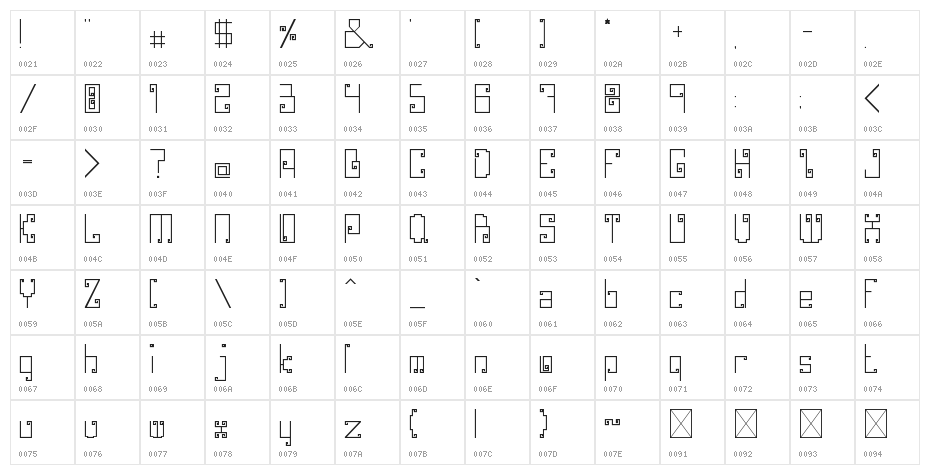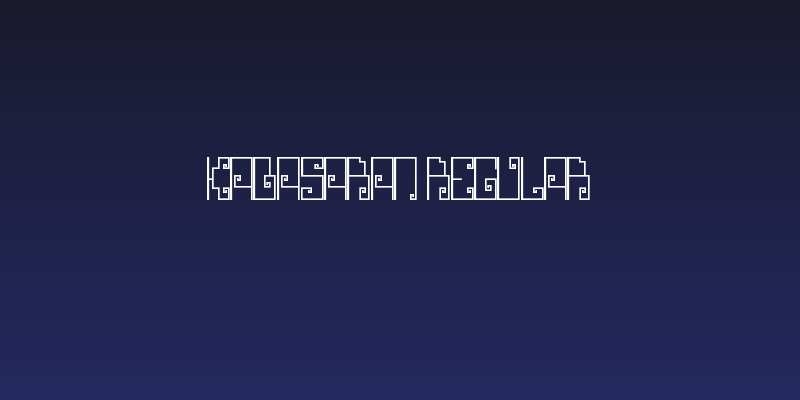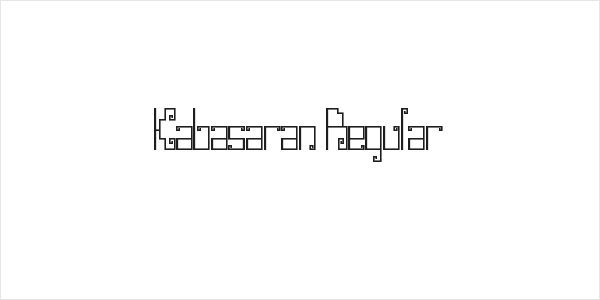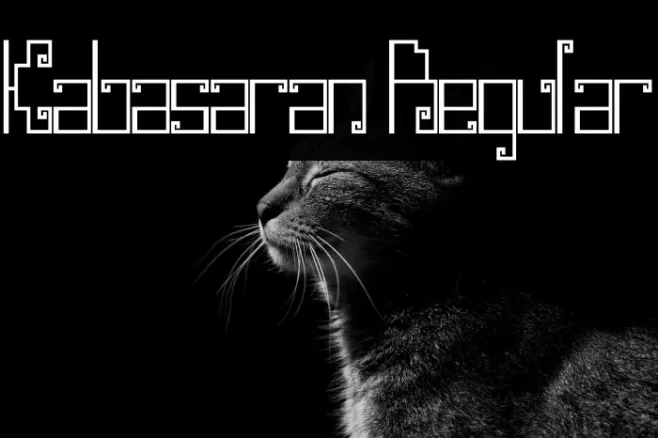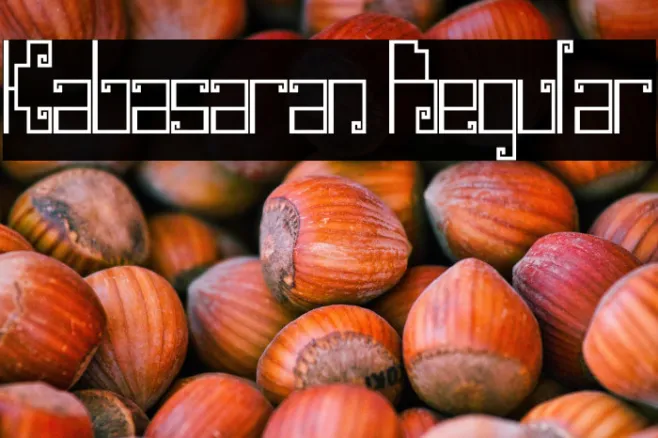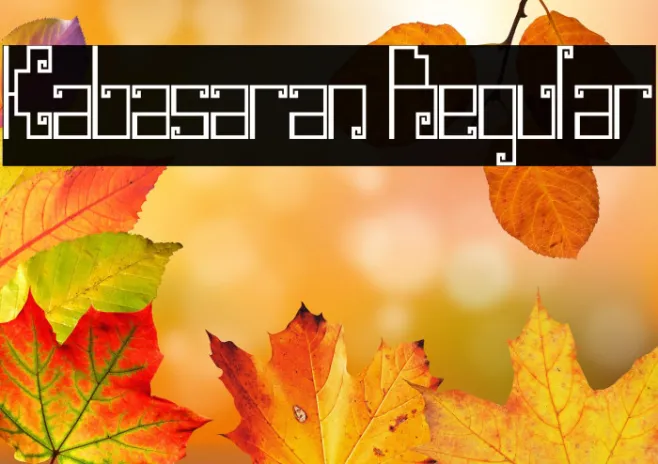
Kabasaran Regular Font
Kabasaran Regular Description
This font features a unique and decorative style characterized by its geometric, spiral-like embellishments on each character. The letters are constructed with straight lines and right angles, giving them a structured and architectural appearance. The spirals add an artistic flair, making the font stand out as a creative and bold choice. The uppercase and lowercase letters maintain a consistent design, ensuring readability while still offering an artistic touch. The numerals and special characters follow the same design principles, providing a cohesive look across all elements. This font is ideal for projects that require a distinctive and eye-catching typeface.
| Proposed Projects | Ideal for posters, logos, branding, and any design needing a bold, artistic touch. |